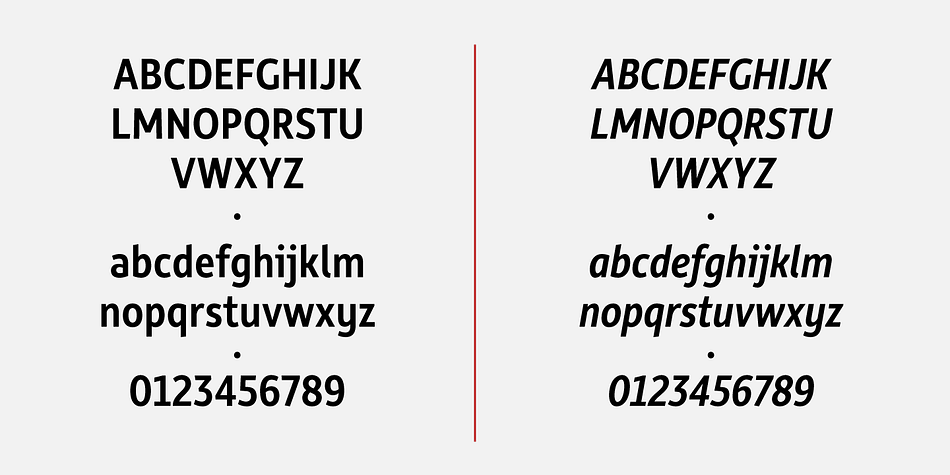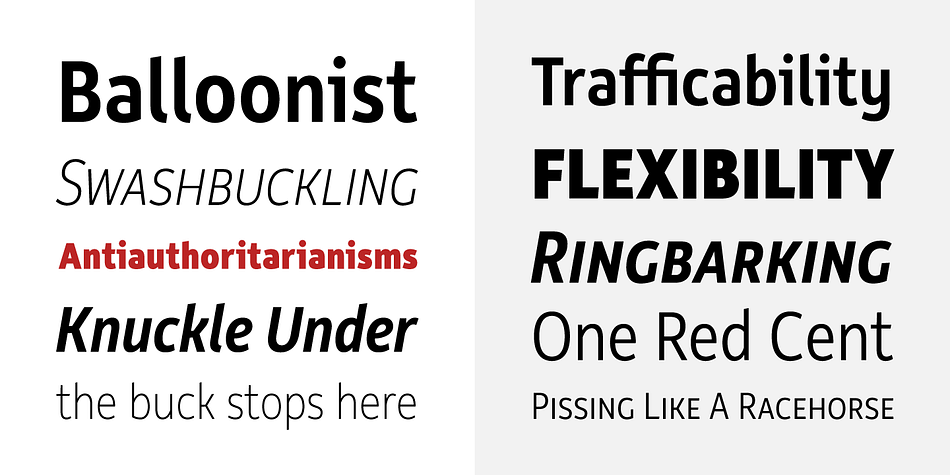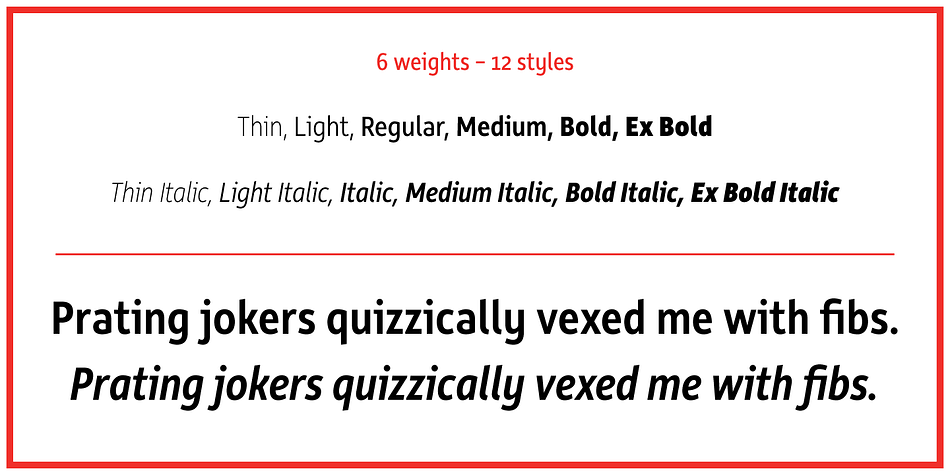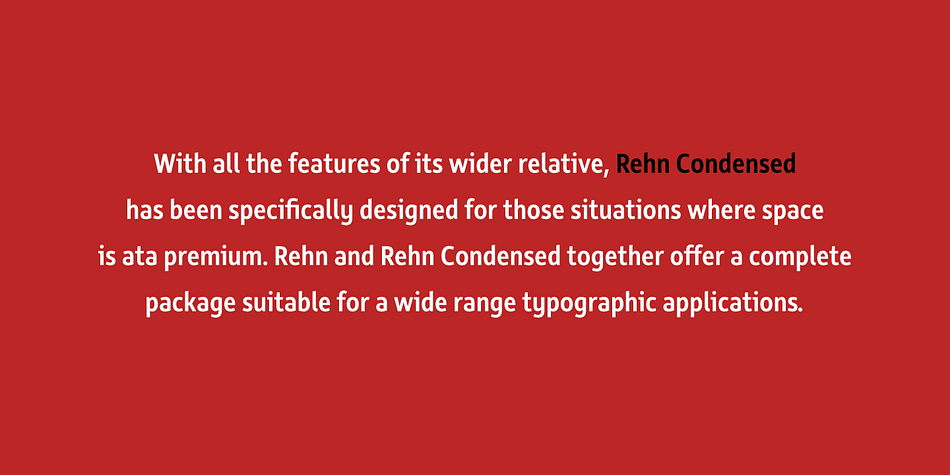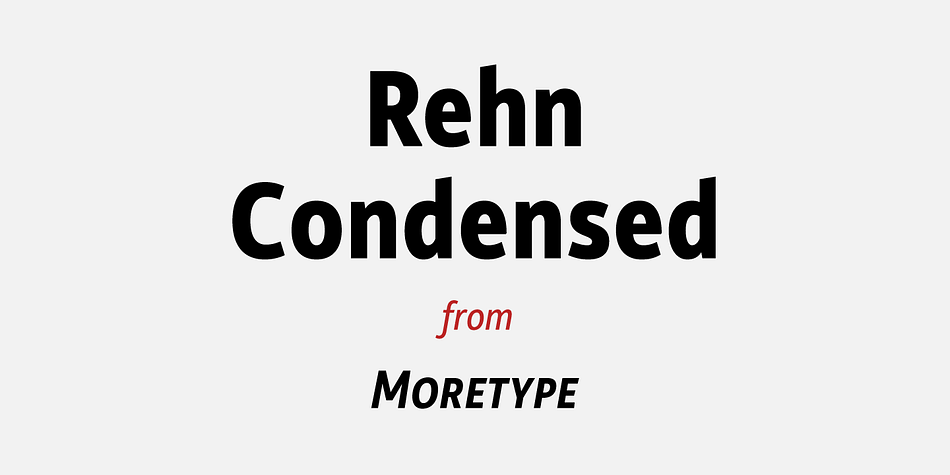
Rehn Condensed is a sans serif font family. This typeface has twelve styles and was published by Moretype.
With all the features of its wider relative, Rehn Condensed has been specifically designed for those situations where space is a premium.
Rehn and Rehn Condensed together offer a complete package suitable for a wide range typographic applications.